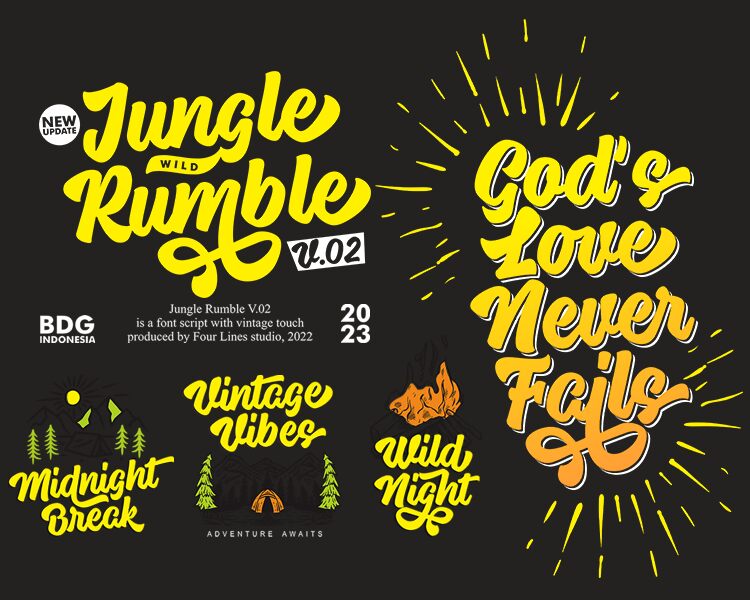
Jungle Rumble is a captivating brush font designed by the team of Four Lines. This amazing typeface reflects an energetic and lively atmosphere which is associated with wildness or wilderness. The bold strokes, dynamic lines and fluid forms of the letters suggest movement and naturalness thus making it perfect for any design project that needs to be filled with life or have a lively feel.
Jungle Rumble can be used in a variety of ways because of its uniqueness; from strong branding ideas/packages to attractive display typography. This extraordinary handmade appearance enhances every work done on it thereby giving them an unprecedented touch of beauty whose origin cannot easily be tamed.